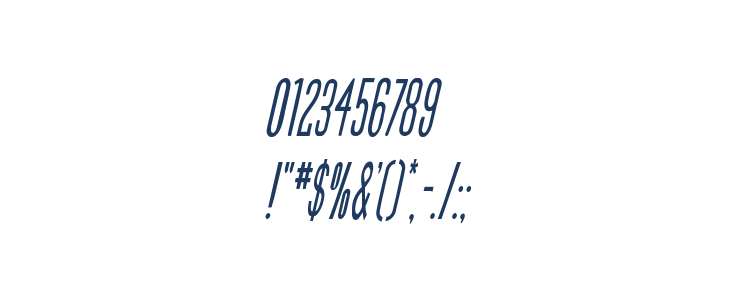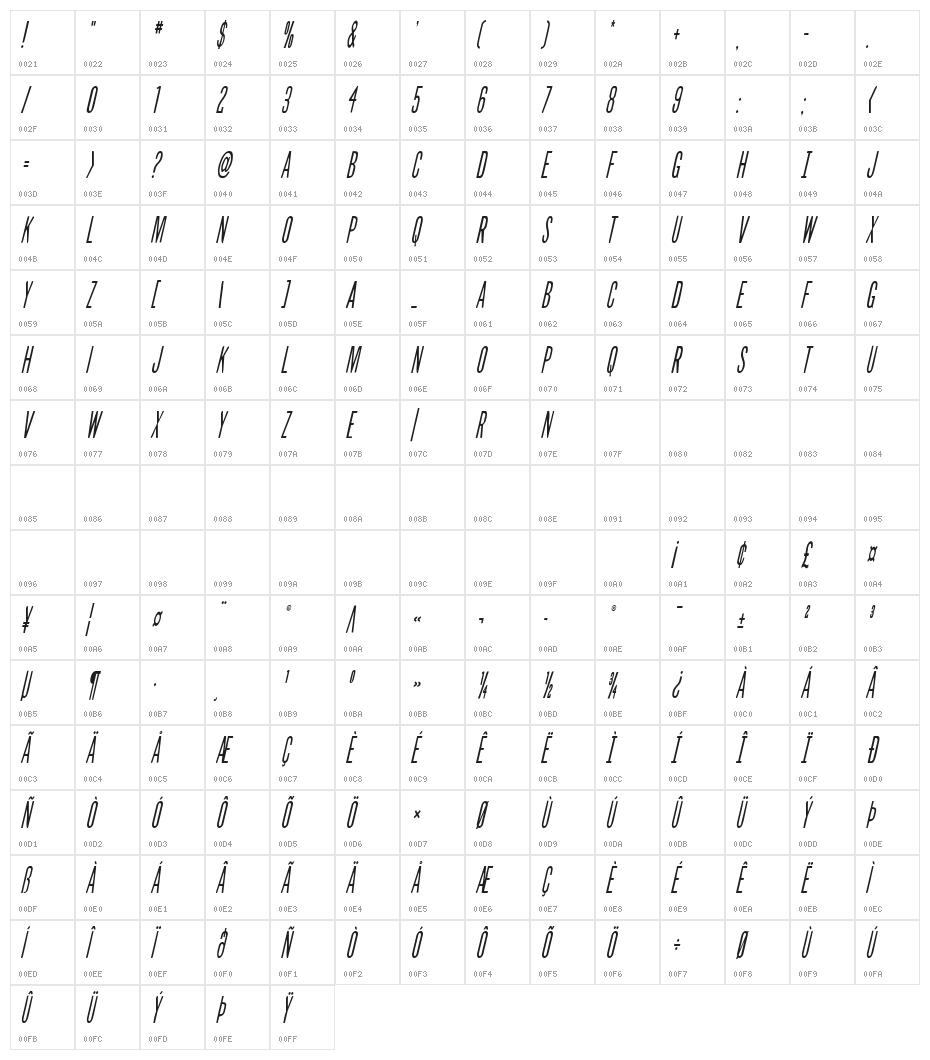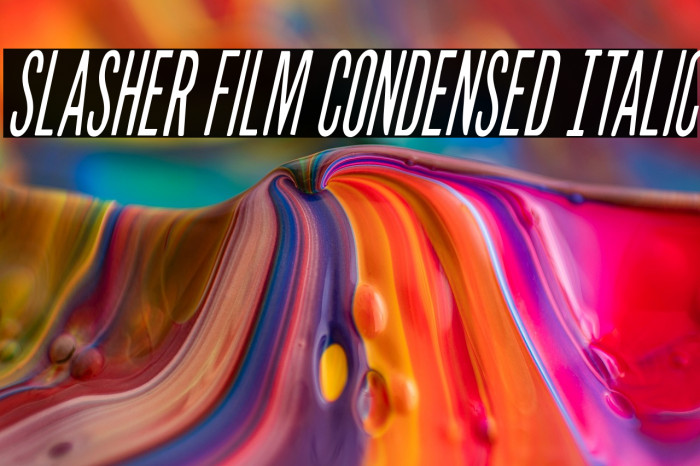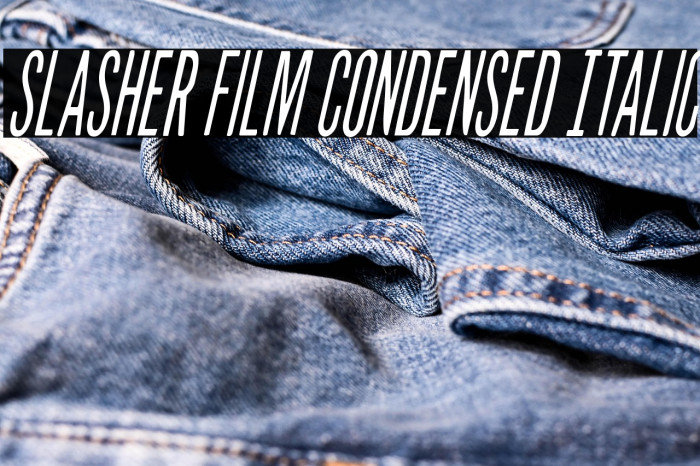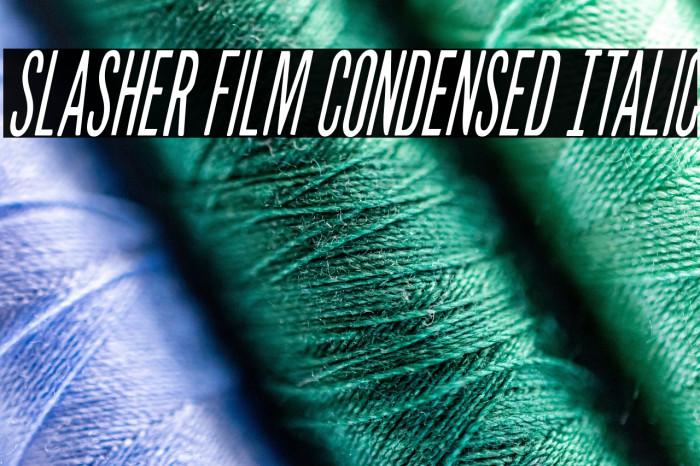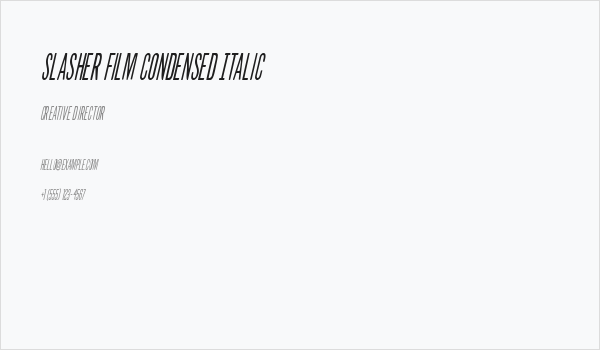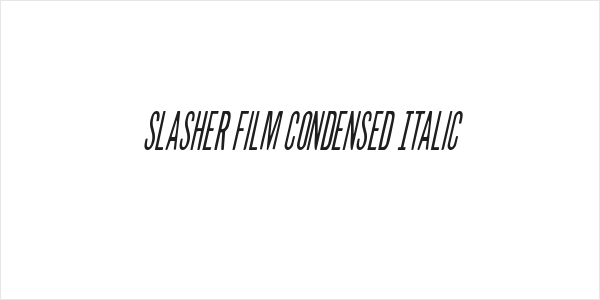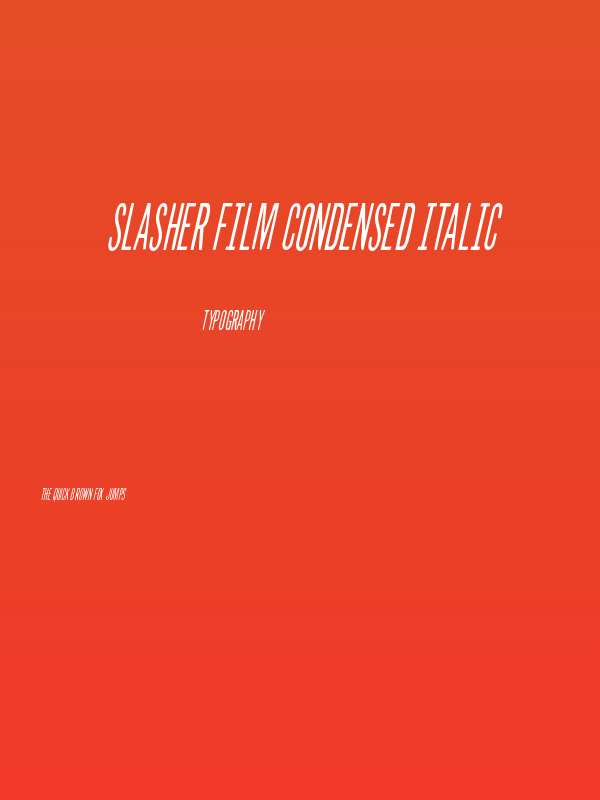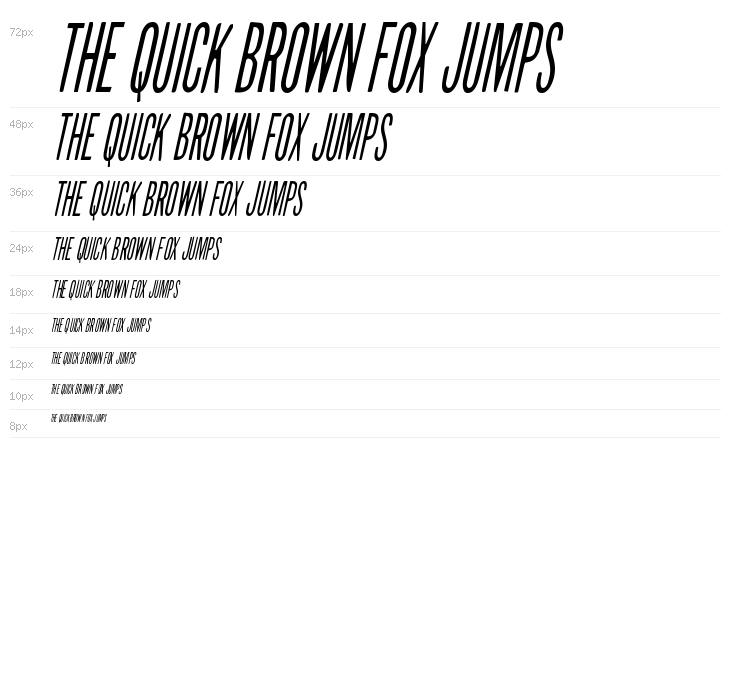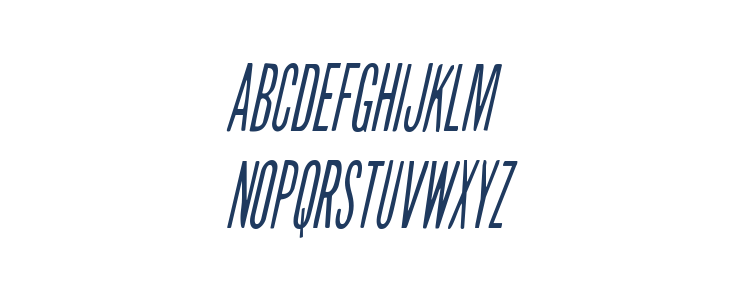
Slasher Film Condensed Italic Font
Slasher Film Condensed Italic Description
This font features a striking, condensed style with a pronounced italic slant, giving it a dynamic and energetic appearance. The characters are elongated and narrow, creating a sleek and modern look. The uppercase and lowercase letters maintain a consistent design, with sharp angles and clean lines that enhance readability while adding a touch of sophistication. The numerals and special characters follow the same condensed and italicized style, ensuring uniformity across all text elements. This font is ideal for projects that require a bold and impactful visual statement.